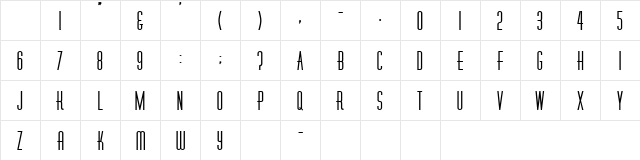
Complete Crossbeam Regular glyph index. Displaying only characters natively supported by Crossbeam Regular font.
Crossbeam Regular is a composed and adaptable typeface that performs quietly and consistently across a wide range of design contexts.